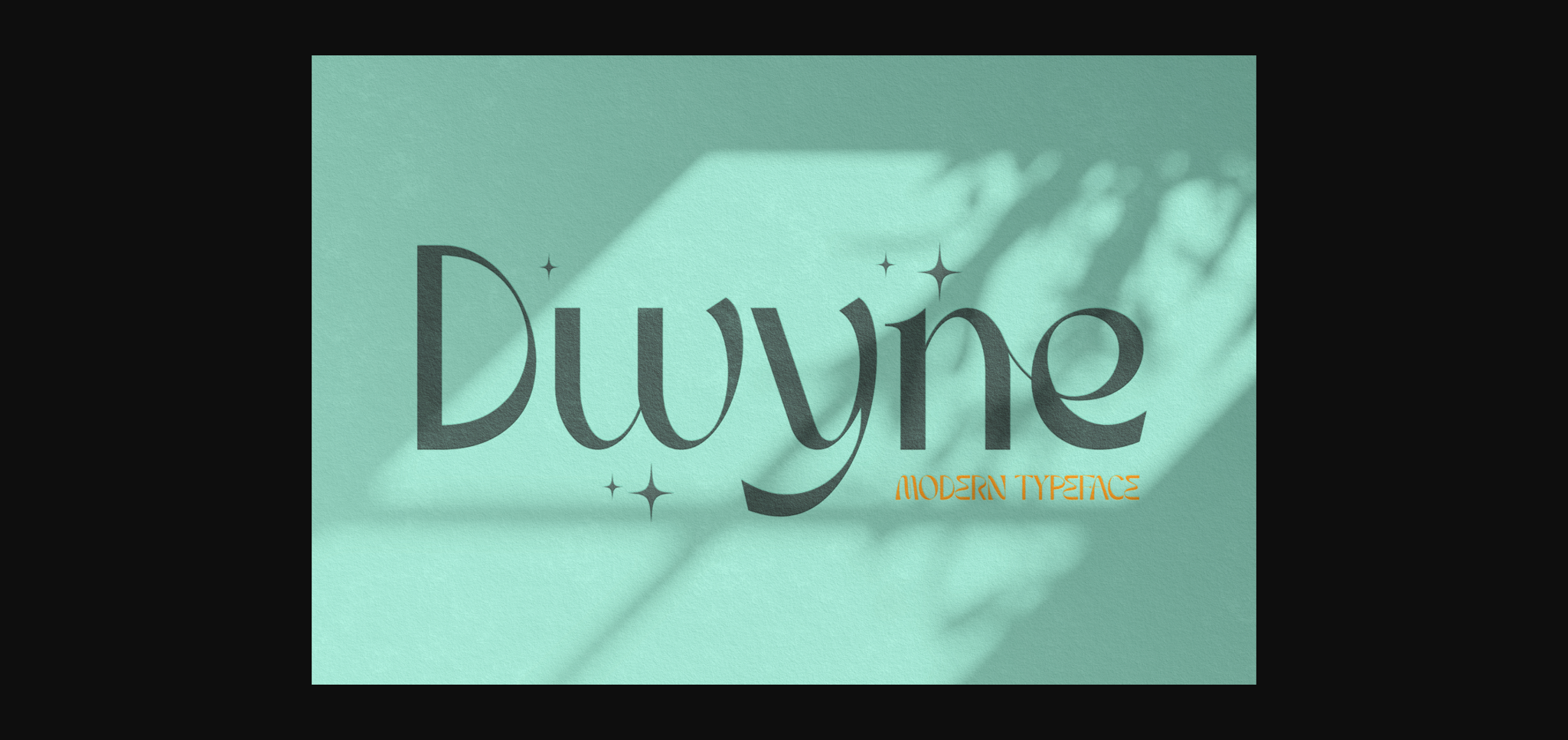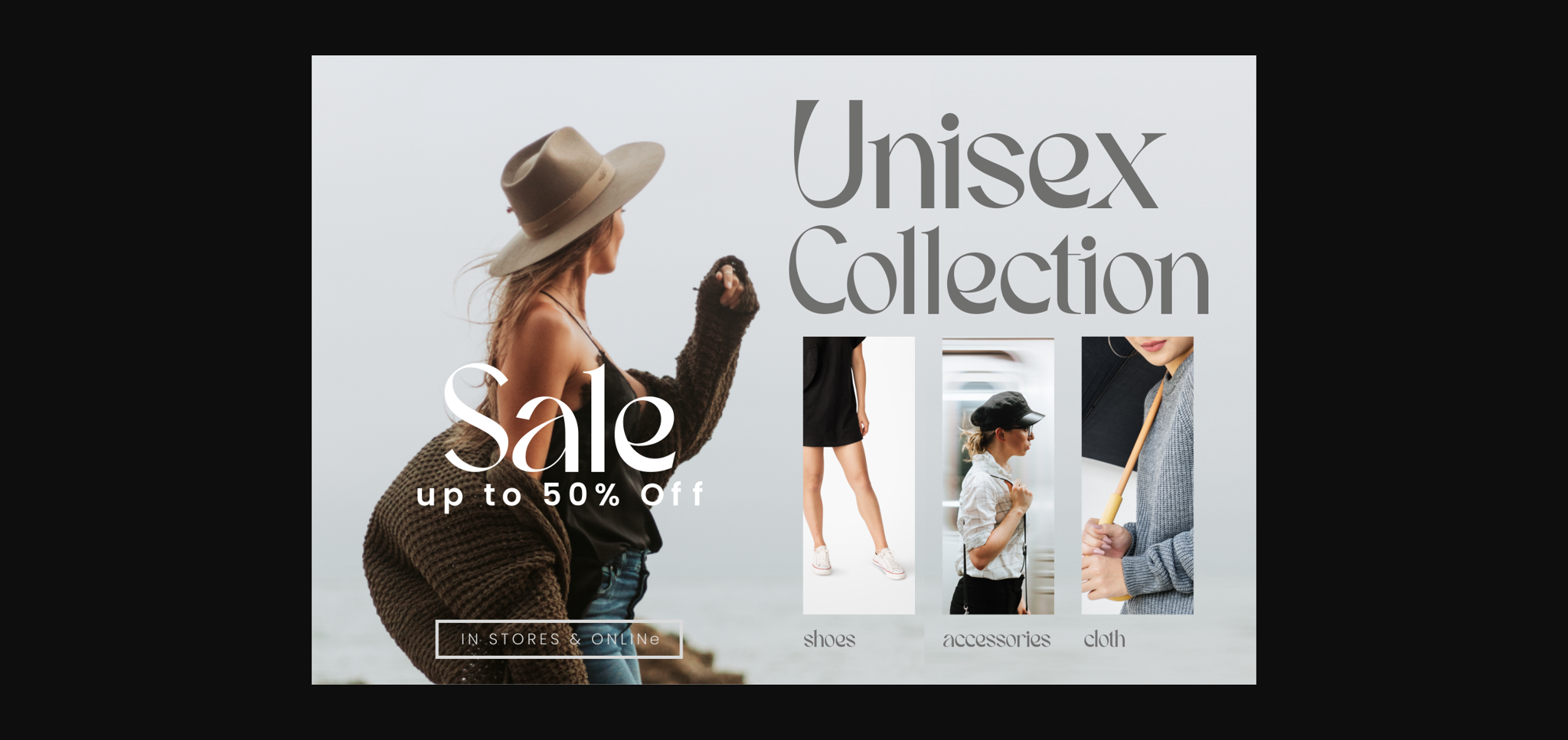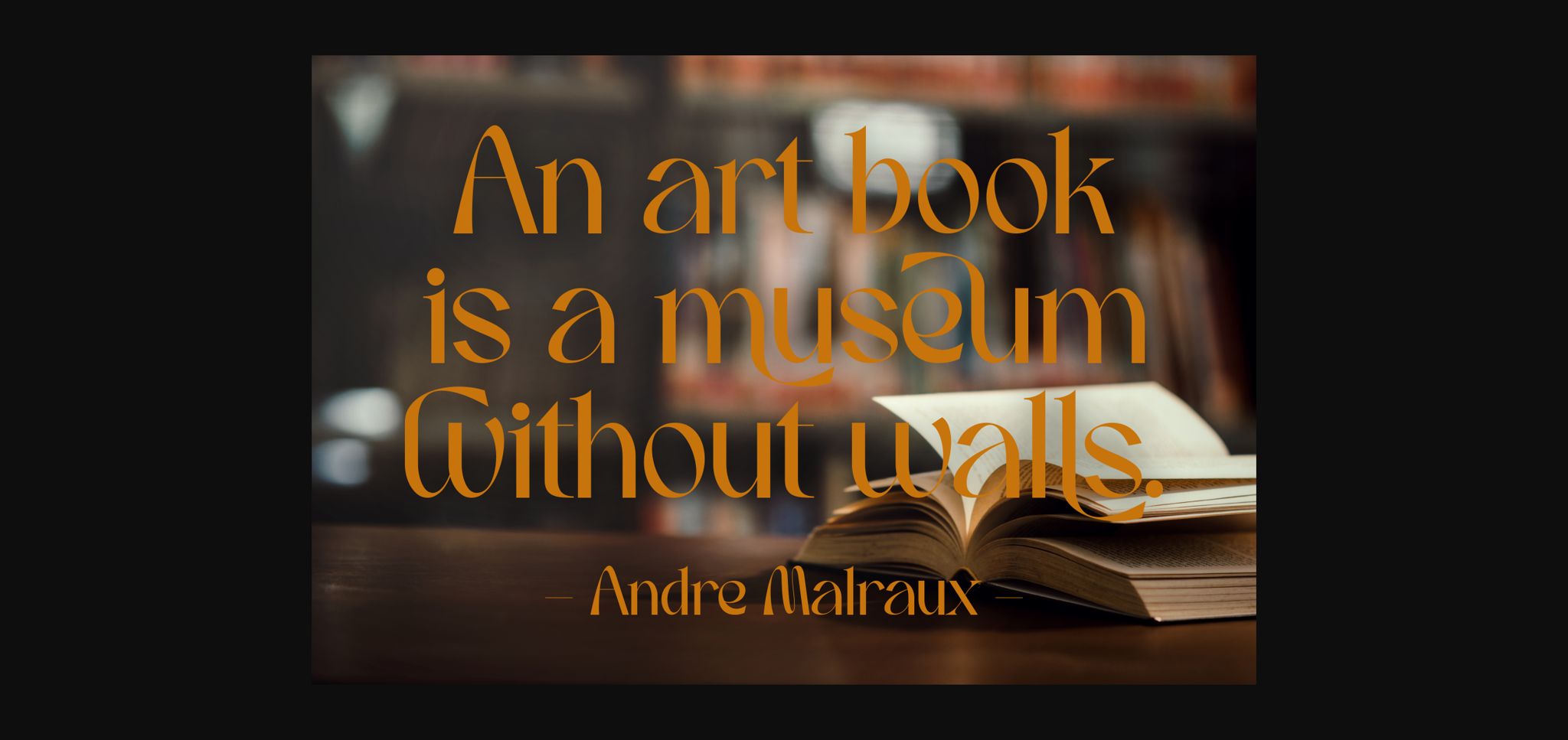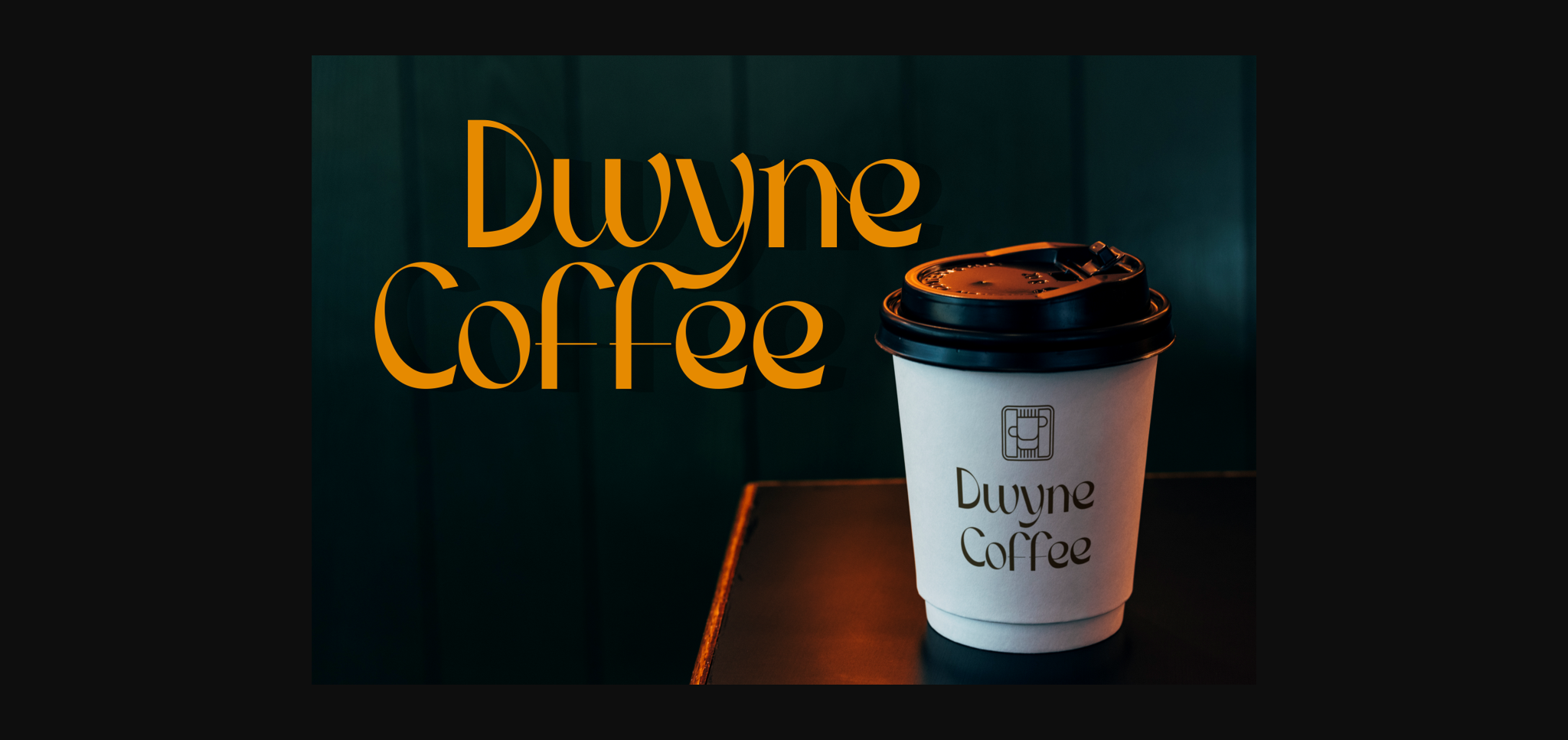
About Dwyne Font
Dwyne is a unique, elegant, and incredibly stylish sans serif font. Masterfully designed to become a true favorite, this font has the potential to bring each of your creative ideas to the highest level! This font is PUA encoded which means you can access all the glyphs and alternates with ease!